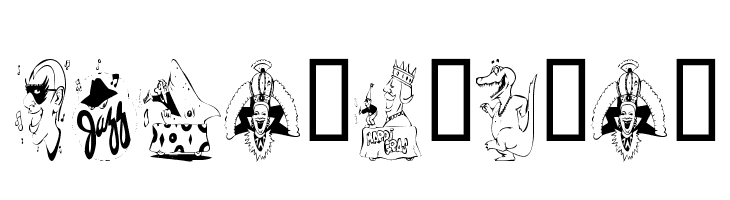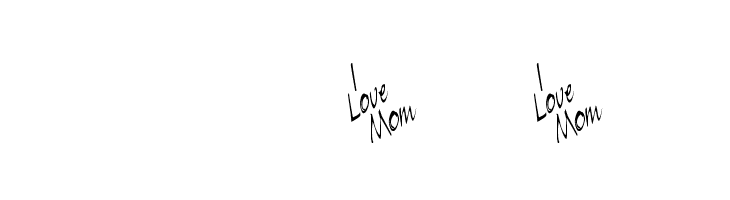
A festive dingbat font with Mardi Gras-themed illustrations.
A dynamic, marker-style font with playful, hand-drawn characteristics.
A bold, decorative font with cowboy hat motifs integrated into each letter.
Animal silhouette dingbat font with playful, bold shapes.
A decorative font with letters encased in ornate mirror frames, perfect for whimsical designs.
A playful, retro font with bold letters encased in circular frames.
A bold, playful font with moon-themed decorative elements and a modern style.
A decorative font with playful holiday-themed icons.
A whimsical font with characters inside steaming coffee cups, perfect for creative designs.
A decorative font with Mother's Day-themed designs and playful elements.